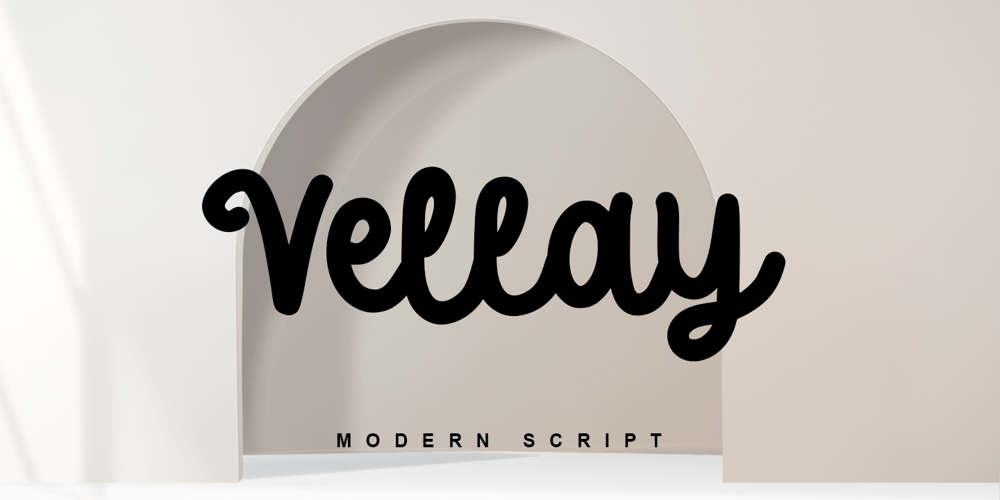
Vellay Font Family was designed by Stefani Tri Rosa Setiati Christiana and published by Stefani Letter. Vellay contains 2 styles and family package options. Vellay is a stunning monoline-style script font with authentic and casual vibes. It looks beautiful on a variety of designs requiring a personalized style, such as wedding invitations, thank you cards, advertising, poster, greeting cards, logos, and so on. Vellay is PUA encoded which means you can access all of the glyphs and swashes with ease!